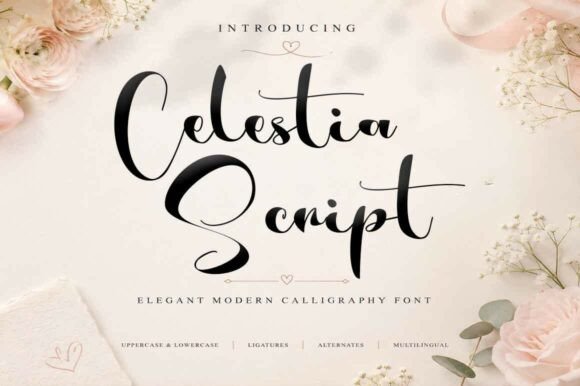
Celestia Script: A Designer's Honest Review
In the crowded landscape of digital type, finding a script font that balances elegance with legibility is often a game of chance. As a designer who has spent years curating brand identity systems and crafting packaging design for boutique clients, I approach every new typeface with skepticism. Does it hold up at small sizes? Does it scream "cheap" or whisper "luxury"? When I first opened the files for Celestia Script, I was looking for a versatile tool to replace my go-to handwritten font for high-end projects. What I found was a premium font that immediately elevated the mood of my workspace.
The First Impression: Mood and Personality
The moment you load Celestia Script into your design software, the visual personality becomes apparent. It does not feel like a rigid, computer-generated imitation of handwriting. Instead, it carries the fluidity of a confident pen stroke, yet maintains enough structure to remain readable. The strokes vary in thickness, mimicking the natural pressure of a calligraphy nib, which gives it an organic, human touch. This is crucial for modern typography where authenticity drives engagement.
For logo design, this typeface offers a distinct advantage. It feels established yet fresh, avoiding the cliché of overused cursive styles. The loops are decorative but never obstructive, and the terminals have a sharp, clean finish that suggests precision. If you are working on a project that requires a sense of grace—perhaps a wedding invitation suite, a beauty brand launch, or a literary blog header—Celestia Script naturally belongs there. It creates an immediate emotional connection, signaling quality and attention to detail before the viewer even reads the copy.
Performance in Real-World Projects
A beautiful font is useless if it cannot withstand the rigors of actual production. I tested Celestia Script across a variety of scenarios to see how it performs under pressure. In packaging design, specifically for product labels on glass bottles and cosmetic jars, the font shone. The curves of the letters complemented the cylindrical shapes of the containers, creating a harmonious visual flow. When paired with a minimalist sans serif font for the ingredient list, the hierarchy was clear and professional.
I also explored its utility in editorial design. For magazine covers and feature headlines, Celestia Script acts as a powerful anchor. It draws the eye instantly, making it perfect for pull quotes or chapter titles in printable design assets. However, its true versatility became evident when I applied it to digital mediums. In web design, particularly for hero sections and navigation accents, the font loaded cleanly and rendered sharply across different devices. For social media managers and content creators, this creative font transforms standard posts into engaging visuals. Whether used in Instagram stories, Pinterest pins, or Facebook ads, it adds a layer of sophistication that stock photos alone cannot achieve.
For crafters and digital sellers utilizing tools like Cricut or Canva, Celestia Script is a game-changer. It cuts cleanly without losing its delicate details, making it ideal for vinyl decals, t-shirt designs, and custom stationery. As a commercial font, it opens up possibilities for selling digital products like planners, journals, and greeting cards. The ability to scale from a tiny watermark on a digital download to a massive banner on a storefront window demonstrates its robust construction.
Strategic Application: Where to Use It
While Celestia Script is versatile, it is not a one-size-fits-all solution. As a designer, I know that restraint is key to great typography. This display font is best reserved for large headlines, short phrases, brand marks, and decorative accents. Using it for body text is a mistake; the intricate connections between letters will strain the reader's eyes and reduce comprehension. Its strength lies in its ability to highlight specific words or concepts rather than carry entire paragraphs.
I recommend using Celestia Script for premium packaging where space is limited, such as on perfume caps or luxury soap bars. In these contexts, the font acts as a seal of quality. It is equally effective for invitations, where the script style conveys formality and celebration. For social posts, use it sparingly to emphasize a quote or a call to action. When used as supporting text in a larger layout, it can add a whimsical touch, but only if balanced correctly with more structured typefaces.
Readability and Brand Consistency
One of the primary concerns with any script font is readability. Celestia Script manages this well, provided you respect its size limitations. At 12 points or smaller, the details begin to blur, especially on low-resolution screens or textured paper. Always test your design in black and white before finalizing. This simple step reveals whether the contrast is sufficient and if the letterforms remain distinct without color support.
Brand consistency relies heavily on how a typeface interacts with others. Celestia Script pairs beautifully with a classic serif font for a traditional, editorial look. The sharp serifs provide a grounding counterpoint to the flowing curves of the script. Alternatively, pairing it with a geometric sans serif font creates a modern, chic aesthetic suitable for tech startups or fashion brands. Avoid pairing it with another handwritten font; the competition for attention will create visual noise and dilute the message.
Ultimately, Celestia Script is a valuable addition to any designer's toolkit. It bridges the gap between the organic feel of hand-lettering and the reliability of a digital typeface. By understanding its strengths and limitations, you can leverage it to create stunning logo design concepts, memorable social media graphics, and cohesive brand identity systems that resonate with your audience. It is not just a font; it is a design decision that speaks volumes about the quality of your work.